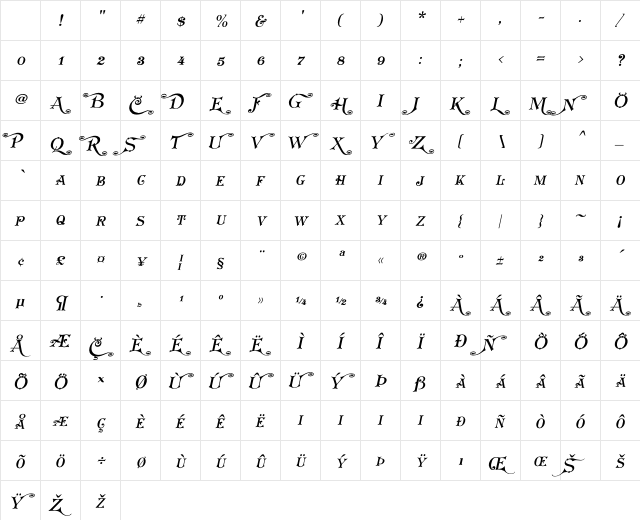
Complete Koster Swash Caps Oblique Regular glyph index. Displaying only characters natively supported by Koster Swash Caps Oblique Regular font.
Koster Swash Caps Oblique flows with the natural rhythm of handwritten lettering, making it ideal for designs that call for warmth and personal expression.
Font Pairing: Combine Koster Swash Caps Oblique with a simple geometric sans for maximum contrast - the tension between flowing curves and clean structure is a classic typographic pairing.
Pro Tip: Use Koster Swash Caps Oblique for short runs of text - names, titles, or taglines. Extended body copy in script faces tires the eye quickly.